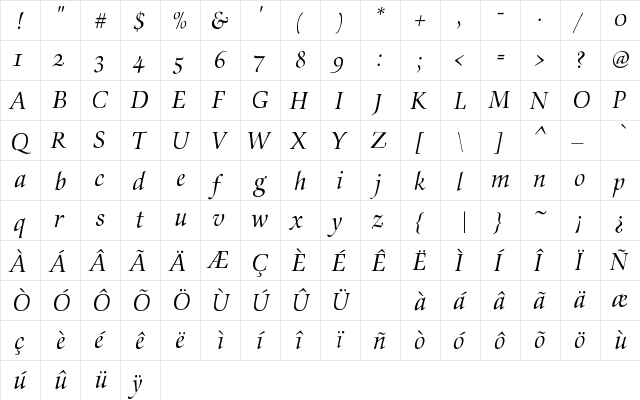
CrownRomanItalic1 Regular
Design Context for CrownRomanItalic1 Typeface
CrownRomanItalic1 is a composed and adaptable typeface that performs quietly and consistently across a wide range of design contexts. The dynamic lean of this cut emphasises speed and emphasis in any layout.
Pro Tip: Try CrownRomanItalic1 for annotation and caption copy alongside an upright companion — the contrast in angle creates a dynamic but ordered typographic system.